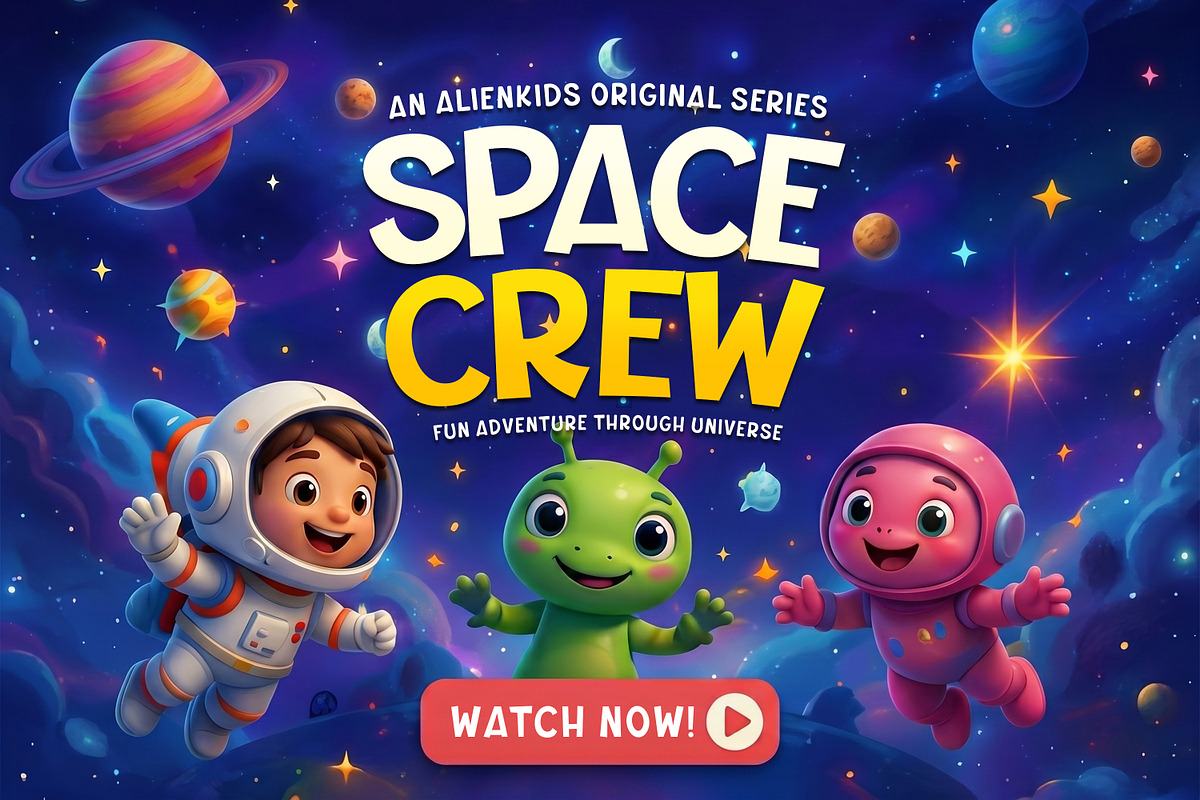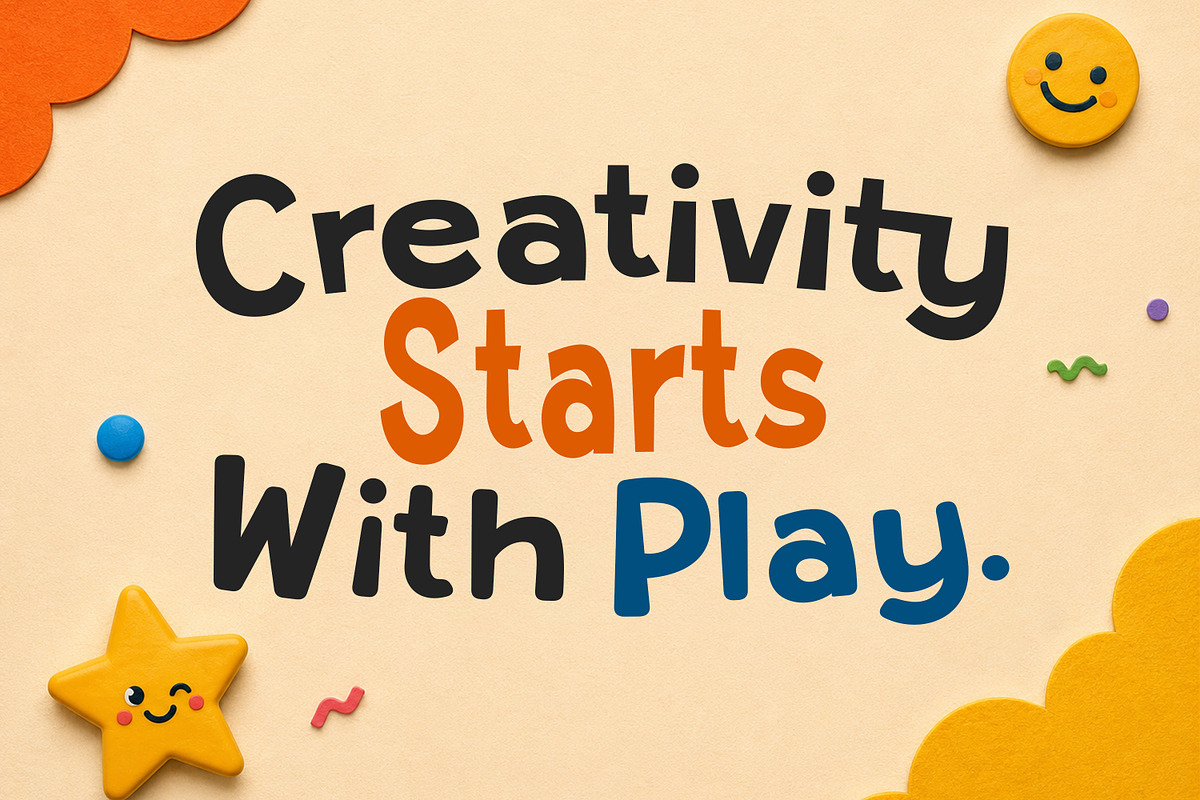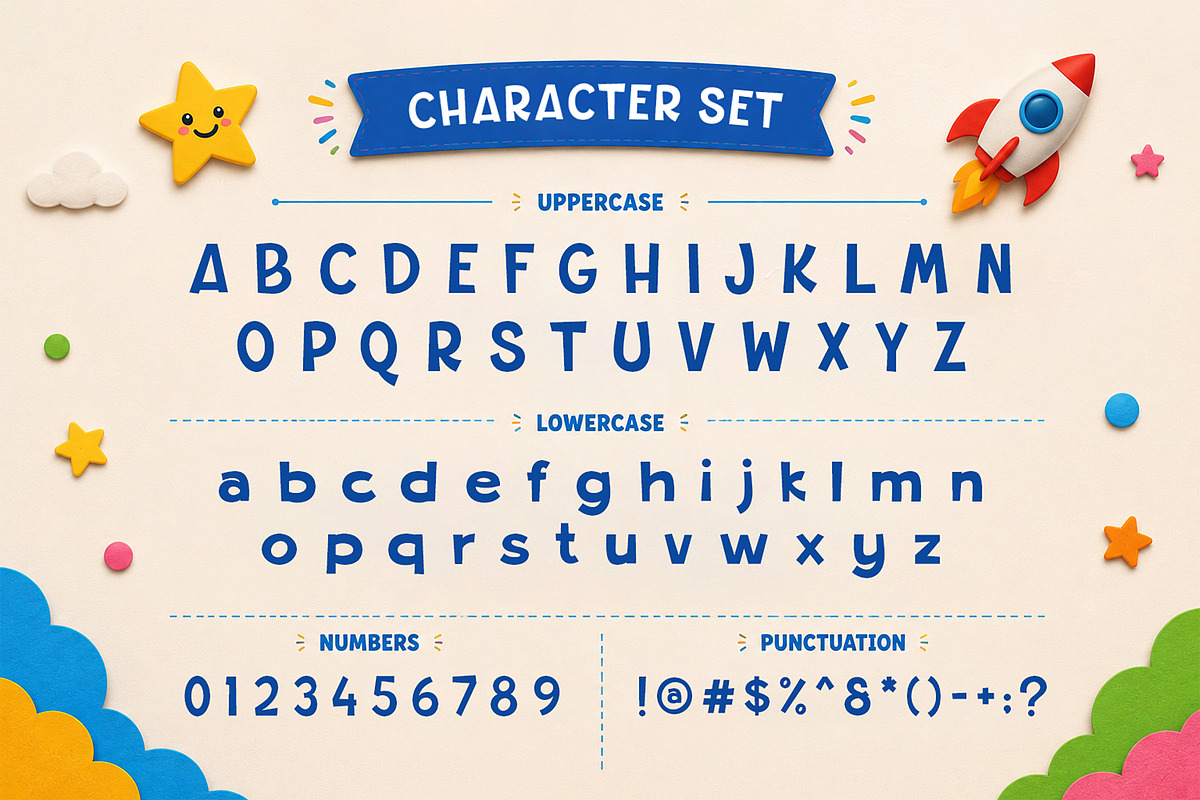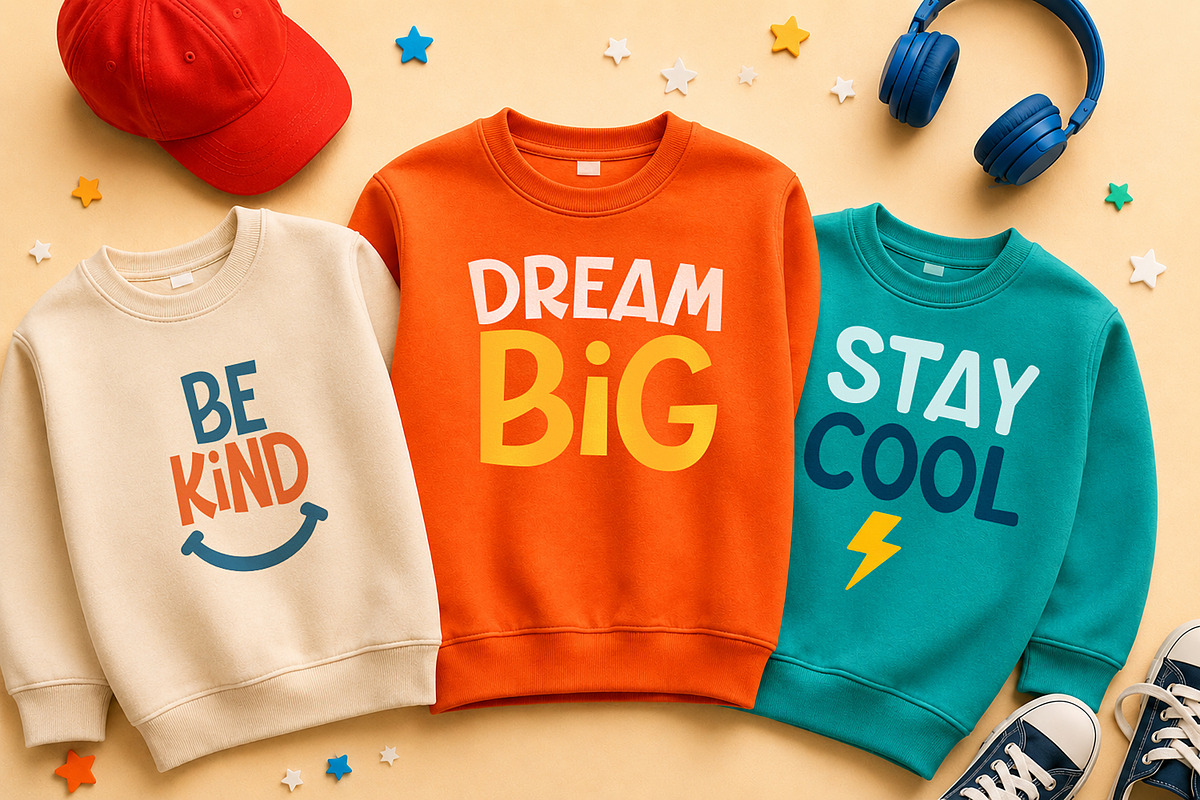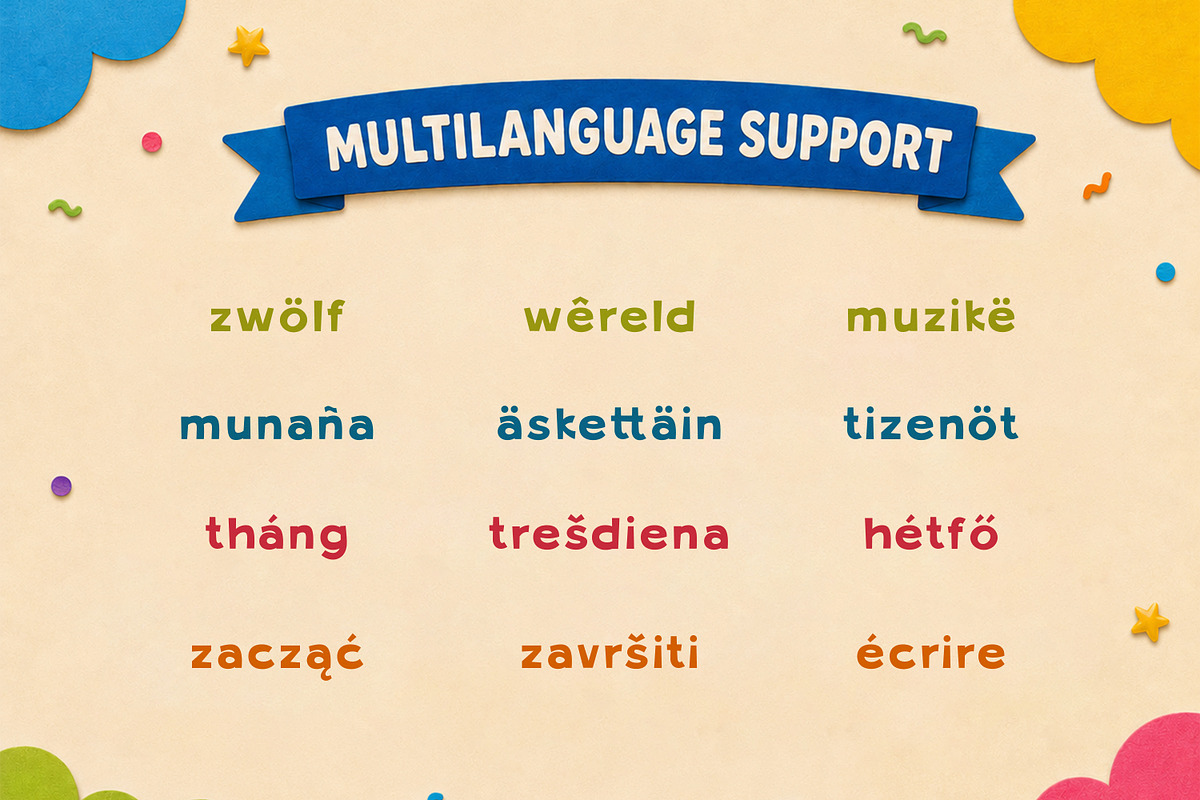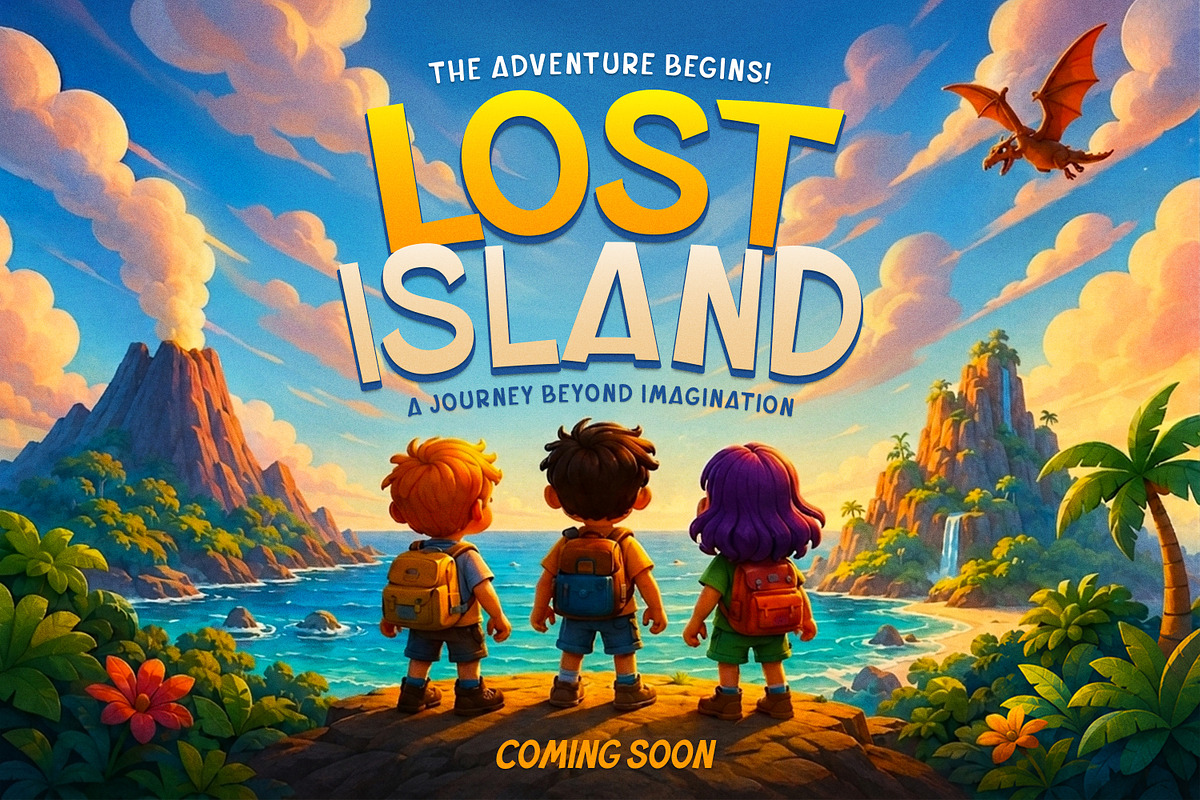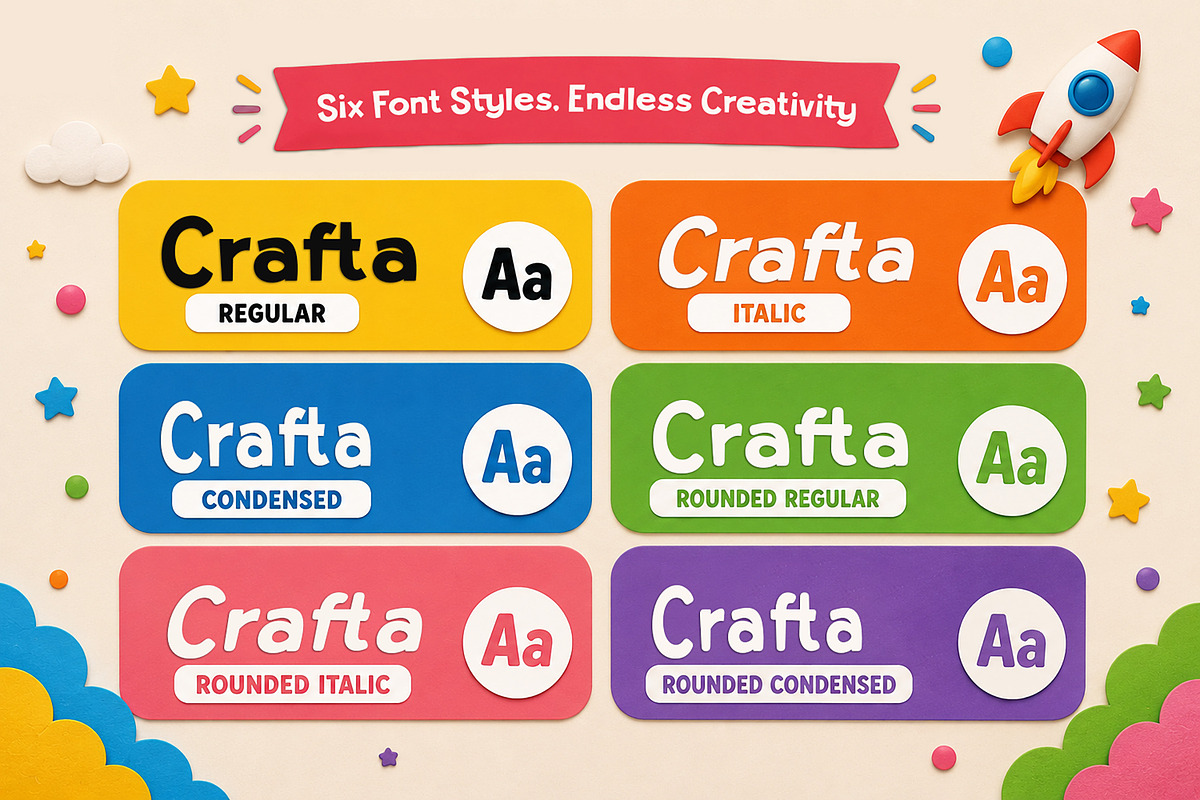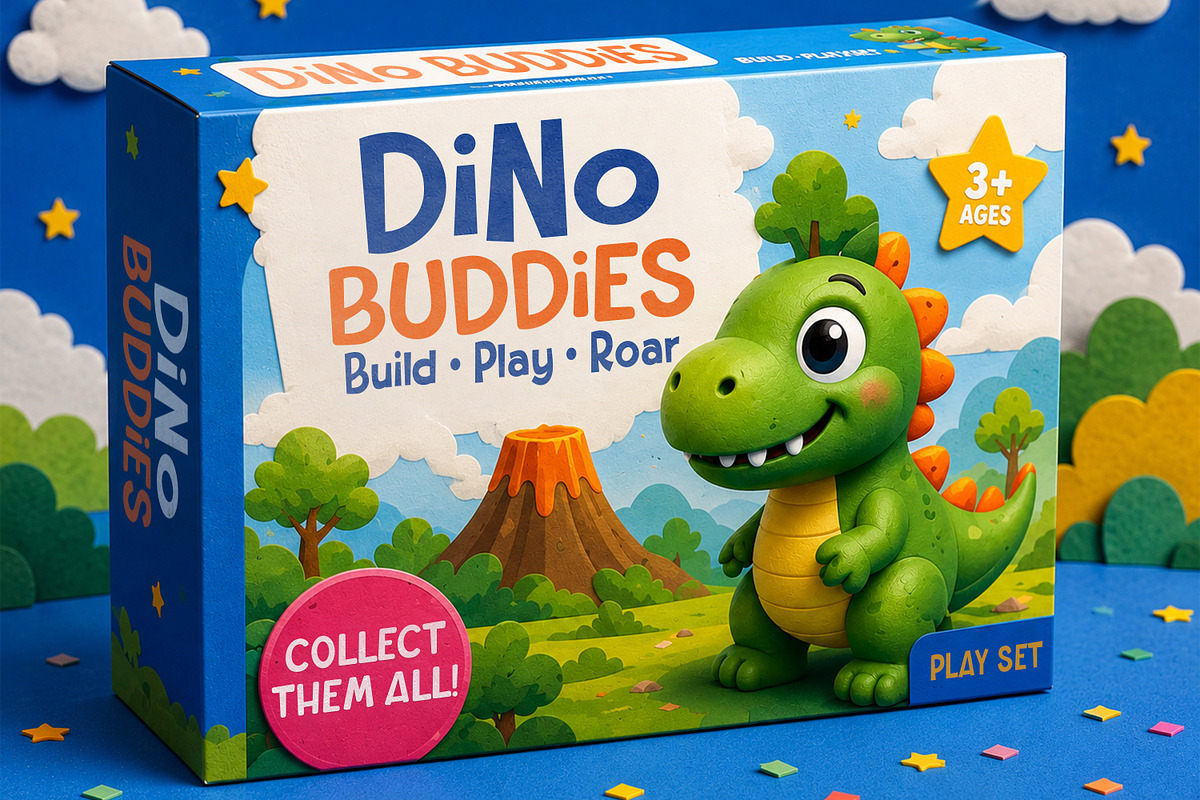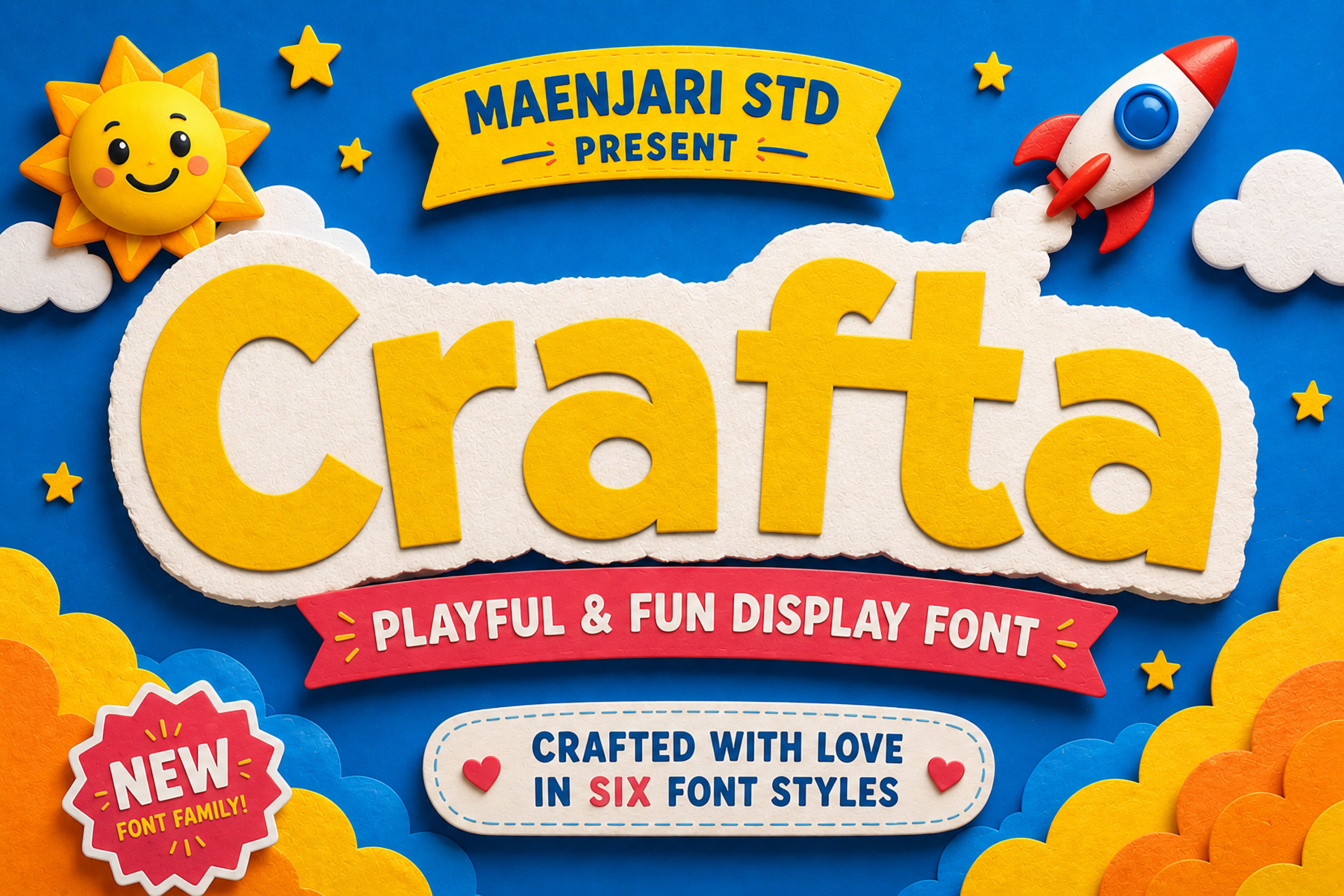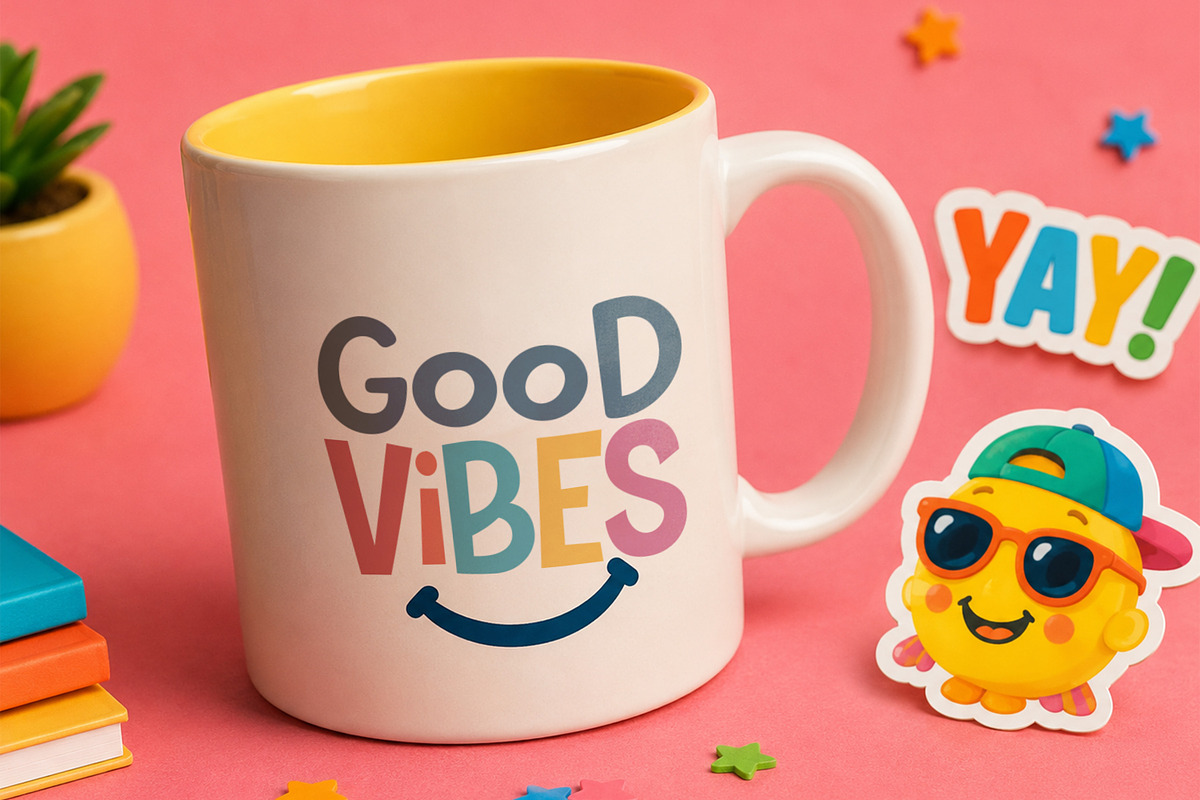
Crafta | Playful & Fun Font Family
Ignite your imagination with Crafta, a playful and vibrant display font family designed to bring joy to every project! Whether you are designing for children’s books, toy packaging, or high-energy branding, Crafta offers a handcrafted feel that is both friendly and professional.
This versatile family comes in 6 unique styles: Regular, Italic, Condensed, and their charming Rounded versions. Each style is meticulously crafted to ensure readability while maintaining a fun, whimsical personality. Its bold shapes and soft corners make it perfect for headlines, posters, social media graphics, and apparel.
Crafta is more than just a font; it’s a creative toolkit. Use the Condensed version for tight spaces, the Rounded styles for a gentler touch, or the Italics to add a sense of motion and excitement. With full multi-language support, Crafta is ready for global adventures!
6 Styles: Regular, Italic, Condensed, Rounded Regular, Rounded Italic, Rounded Condensed.
Full Character Set (Uppercase & Lowercase).
Numbers & Punctuation.
Multi-language Support.
Perfect for posters, branding, kids' products, and games.